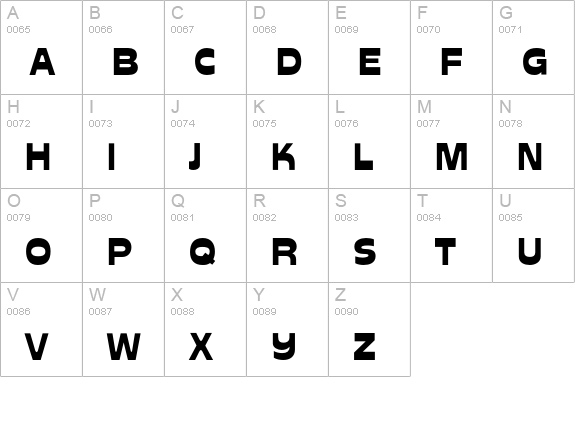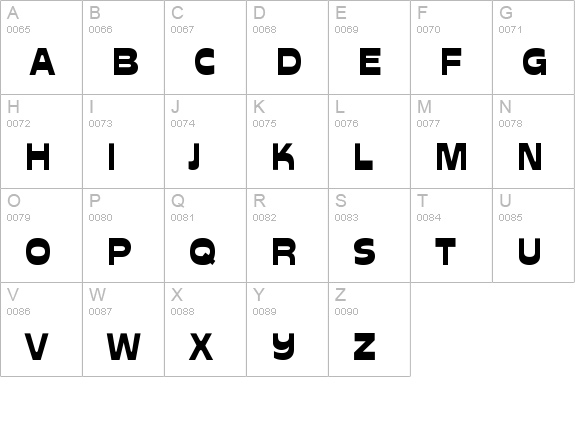
Kenneth-Normal is the standard, neutral variant in the Kenneth typeface family \xE2\x80\x94 well suited to general body text, paragraphs, and standard typographic work.
Introducing Kenneth-Normal Font, a versatile and modern typeface that is perfect for adding a touch of sophistication to any design project. With its clean lines and balanced proportions, Kenneth-Normal Font offers a contemporary yet timeless aesthetic that is sure to catch the eye. This font is carefully crafted to be highly legible, making it an excellent choice for both digital and print designs. Whether you are creating logos, branding materials, websites, or social media graphics, Kenneth-Normal Font will elevate your work to the next level. One of the best features of Kenneth-Normal Font is that it is available for free download at FontsMarket.com. This means that you can access this high-quality font without any cost, making it an invaluable resource for designers on a budget or those looking to experiment with different styles. The versatility of Kenneth-Normal Font is truly remarkable. Its sleek and professional design is suitable for a wide range of projects, from elegant invitations to corporate presentations. With its extensive character set, this font also supports multiple languages, allowing you to cater to a global audience effortlessly. Whether you are a seasoned designer or just starting your creative journey, Kenneth-Normal Font is a must-have in your font collection. Its timeless appeal, legibility, and availability as a free download make it an excellent choice for any project. So why wait? Head over to FontsMarket.com and grab your copy of Kenneth-Normal Font today!